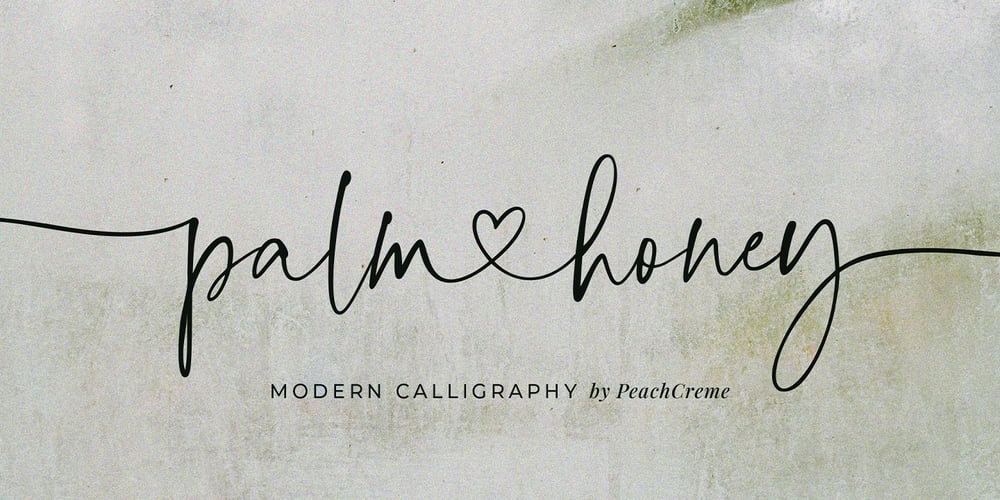
Palm Honey
Palm Honey font
Palm Honey Font Family was designed by Gulya Yeap and published by PeachCreme. Palm Honey contains 1 styles and family package options. We were quite often asked to create heart font with modern letters, stepping back a little from a calligraphic look (Hi, Sophia Ronald!)Palm Honey beautifully works for modern wedding stationery projects.Palm Honey has beginning lowercase, ending lowercase, connecting heart lowercase alternates.You can test your custom text in the box above!